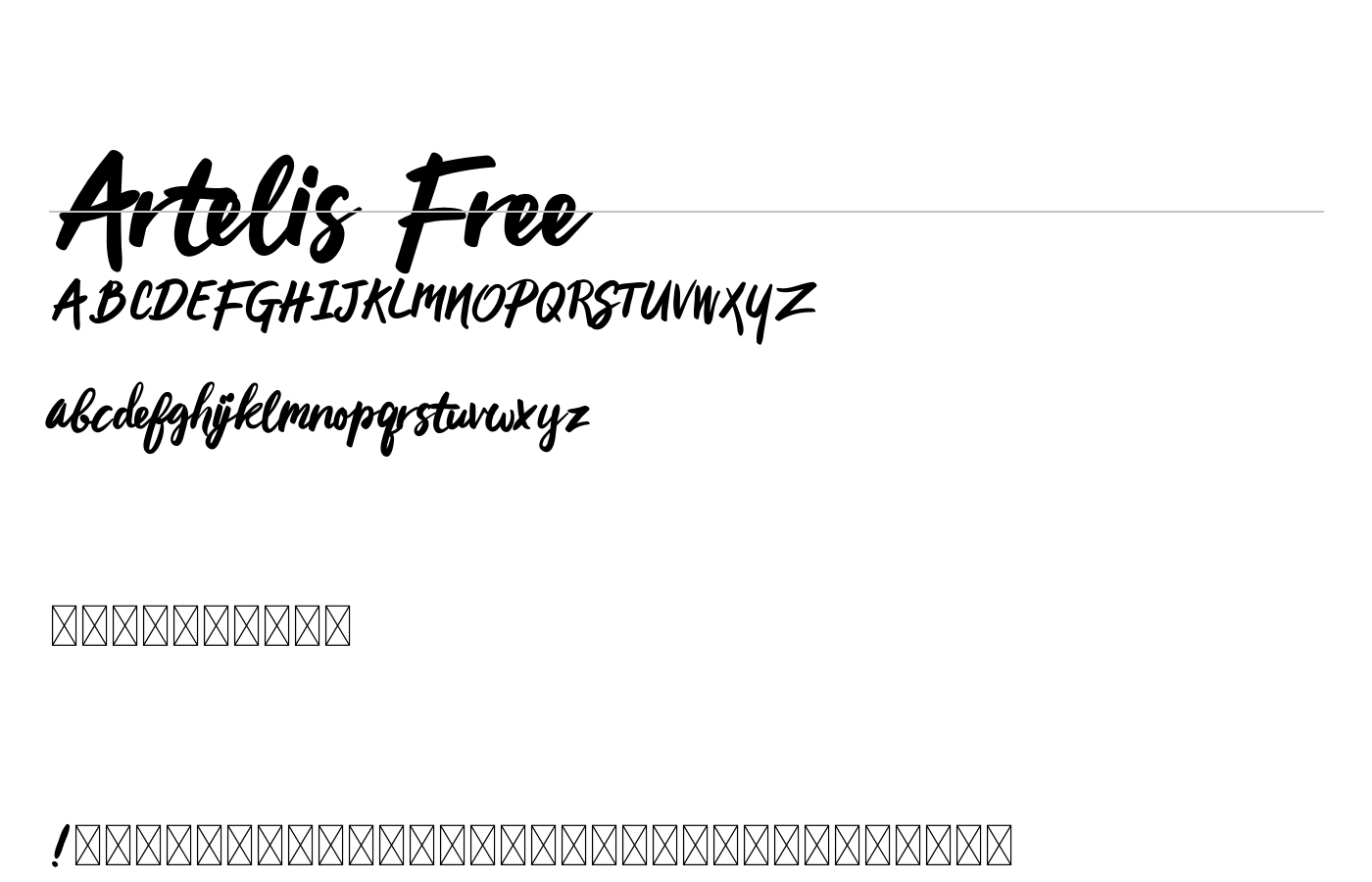
Artelis Free is a lively, brush-script font featuring bold, flowing strokes that give a hand-painted, casual feel. Its energetic and expressive style makes it ideal for creative branding, invitations, and modern editorial projects that want to convey a friendly yet stylish personality. This font works best in headlines and logo designs where a warm, personal touch is desired.
Artelis Free Font
About Artelis Free Font